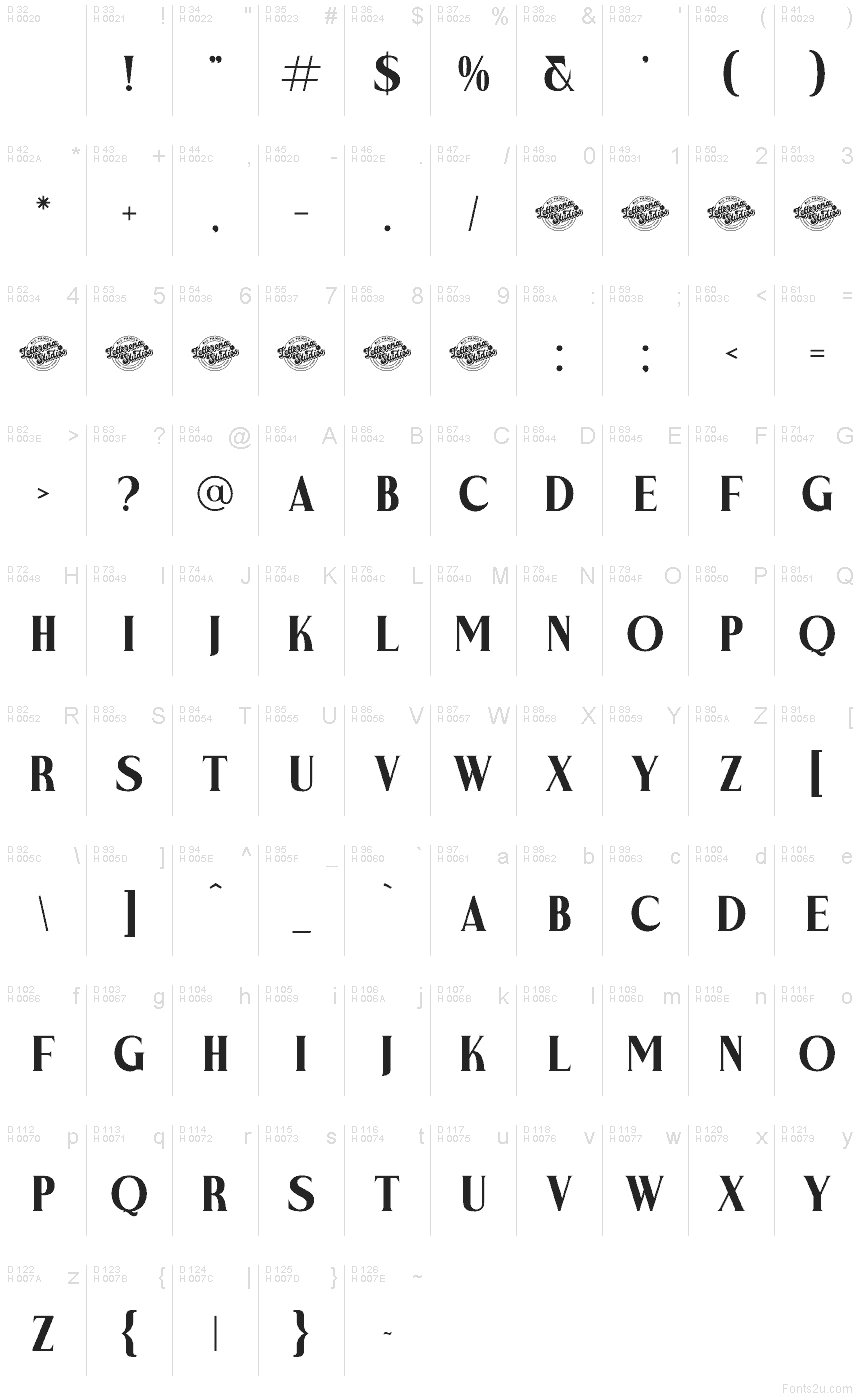
Kraliba DEMO VERSION
Kraliba font from Letterena Studios is a free serif font with refined details and an impactful presence. Its elegant style combines modern design with sleek sophistication, making it ideal for projects where both style and eye-catching ability are desired.
Use Kraliba in headlines, magazines, newspapers, advertising, packaging, branding, mobile applications and games. Its professional appearance makes it suitable for websites of law firms or medical providers as well as other businesses and companies.